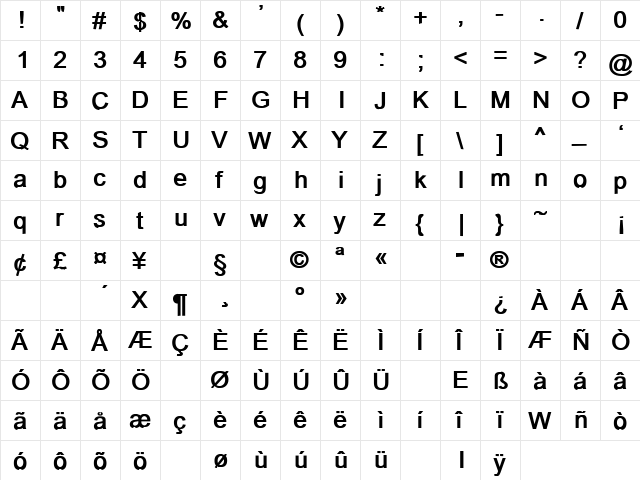
Communication27 Bold Font Preview
Communication27 Bold
Design Context for Communication27 Typeface
Communication27 offers clean, dependable letterforms without strong stylistic allegiance, making it a practical choice for designers who need flexibility. Its bold stroke weight gives it real presence on the page.
Pro Tip: Use Communication27 in both headline and body roles to test its range before committing to a single application.